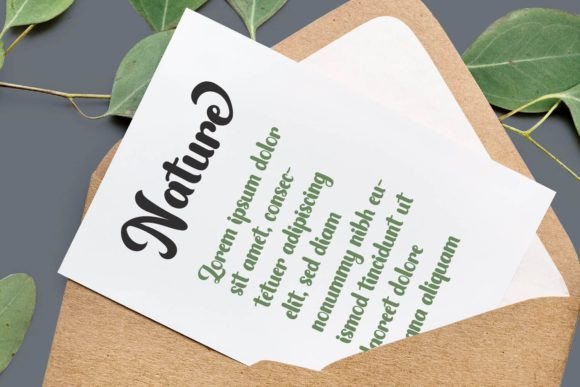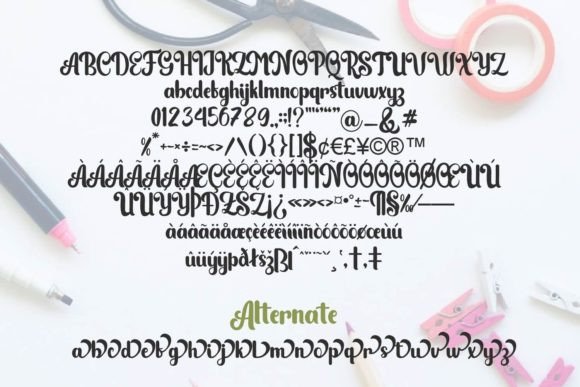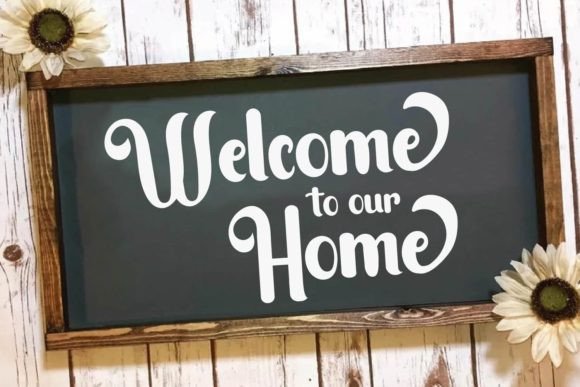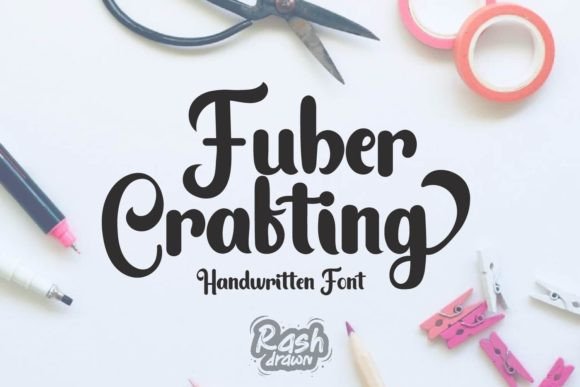
Fuber Crafting Font: Elevate Your Designs with Elegance and Class
In the world of design, typography plays a crucial role in conveying the tone and aesthetic of a project. For crafters, designers, and artists, finding the perfect font can be a daunting task. However, if you’re looking for a trendy, handwritten font with a contemporary atmosphere and impeccable form, look no further than Fuber Crafting Font. Inspired by timeless classic calligraphy, Fuber Crafting is the perfect addition to any design project, adding a touch of elegance and class.
The Inspiration Behind Fuber Crafting Font
Fuber Crafting Font draws inspiration from traditional calligraphy, with a modern twist. The font’s creator aimed to capture the essence of classic calligraphy, while infusing it with a contemporary atmosphere. The result is a font that exudes sophistication and refinement, making it perfect for designers and crafters who want to add a touch of luxury to their projects.
Key Features of Fuber Crafting Font
- Trendy and Handwritten: Fuber Crafting Font boasts a trendy, handwritten style that adds a personal touch to any design project.
- Contemporary Atmosphere: The font’s modern design ensures that it fits seamlessly into contemporary designs, while maintaining a timeless appeal.
- Impeccable Form: Fuber Crafting Font features impeccable form, with carefully crafted lettering that showcases attention to detail.
- Elegance and Class: The font’s classic calligraphy inspiration adds an air of elegance and class to any design project.
Fuber Crafting Font is an excellent choice for designers and crafters who want to elevate their projects with a touch of sophistication. Whether you’re working on a:
- Logo design
- Branding project
- Stationery design
- Crafting project
- Digital art piece
Fuber Crafting Font is the perfect addition to add a level of refinement and polish.
Tips for Pairing Fuber Crafting Font with Other Fonts
To get the most out of Fuber Crafting Font, consider pairing it with other fonts that complement its classic, elegant style. Some font pairing suggestions include:
- Serif fonts, such as Times New Roman or Garamond, for a sophisticated look
- Script fonts, such as Pacifico or Great Vibes, for a romantic, whimsical feel
- Sans-serif fonts, such as Open Sans or Lato, for a modern, clean look
Fuber Crafting Font is a stunning, handwritten font that adds elegance and class to any design project. With its trendy, contemporary atmosphere and impeccable form, it’s the perfect choice for designers and crafters who want to elevate their work. Whether you’re working on a logo design, branding project, or crafting project, Fuber Crafting Font is sure to impress. So why wait? Download Fuber Crafting Font today and take your designs to the next level.